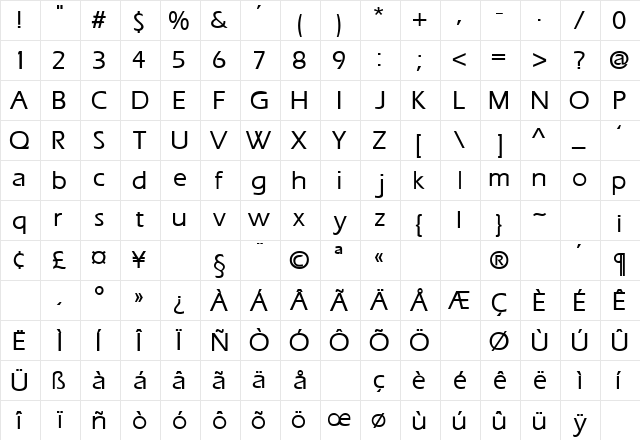
Eros Bold
Design Context for Eros Typeface
Eros takes a measured approach to typography — its balanced proportions and neutral character make it a reliable workhorse for both digital and print work. The heavy weight commands attention and anchors typographic hierarchies.